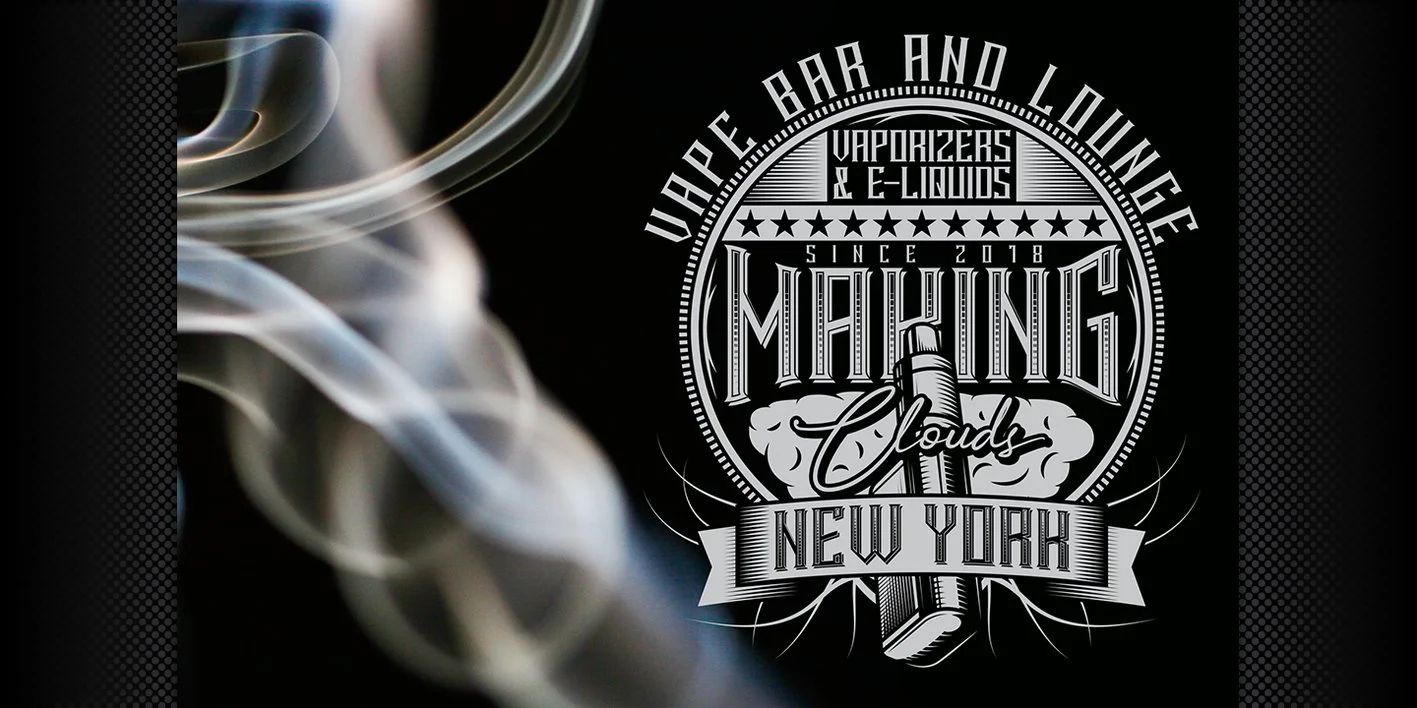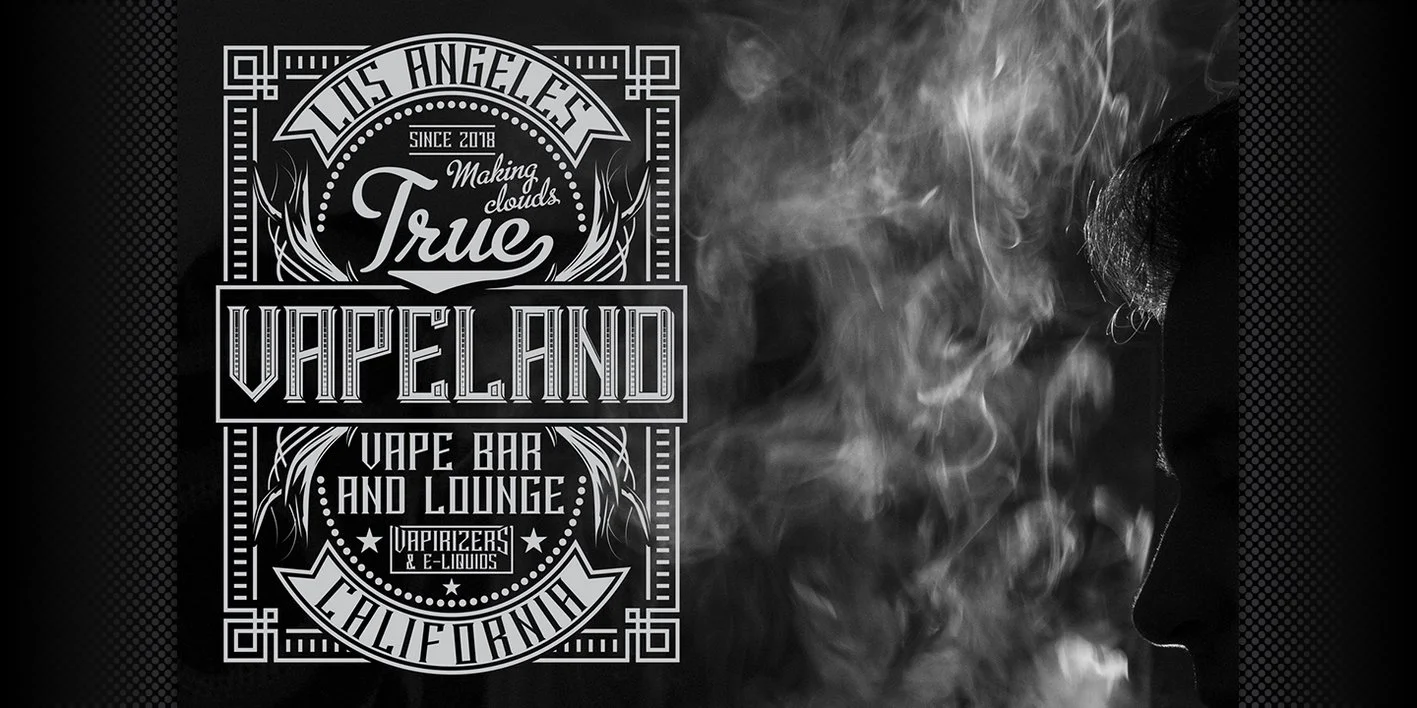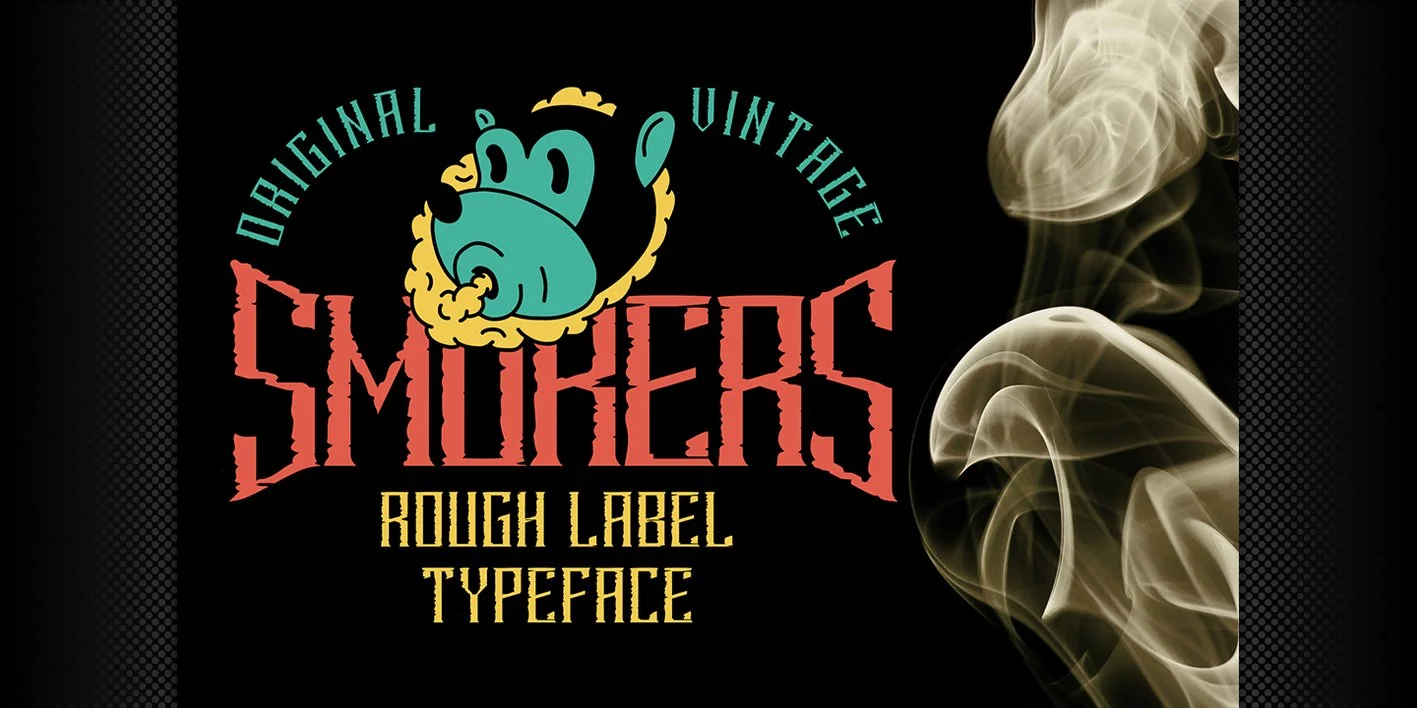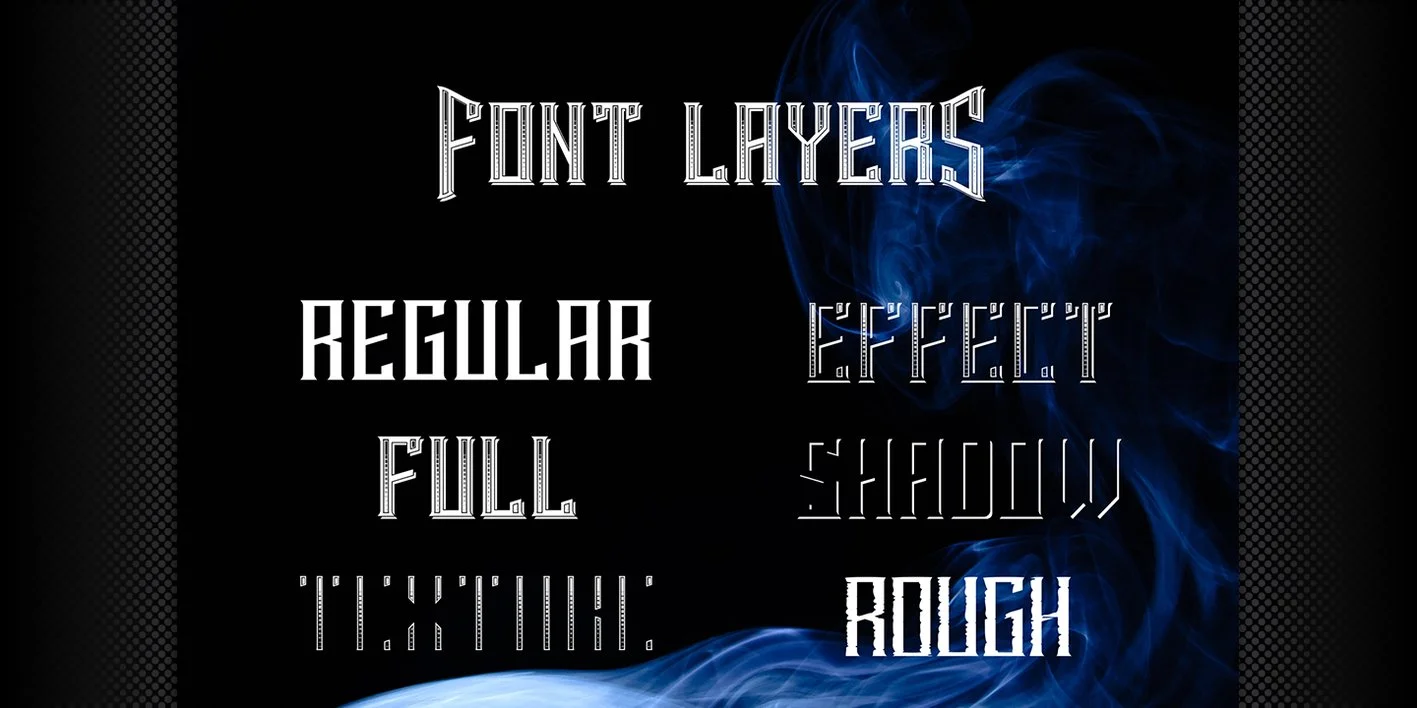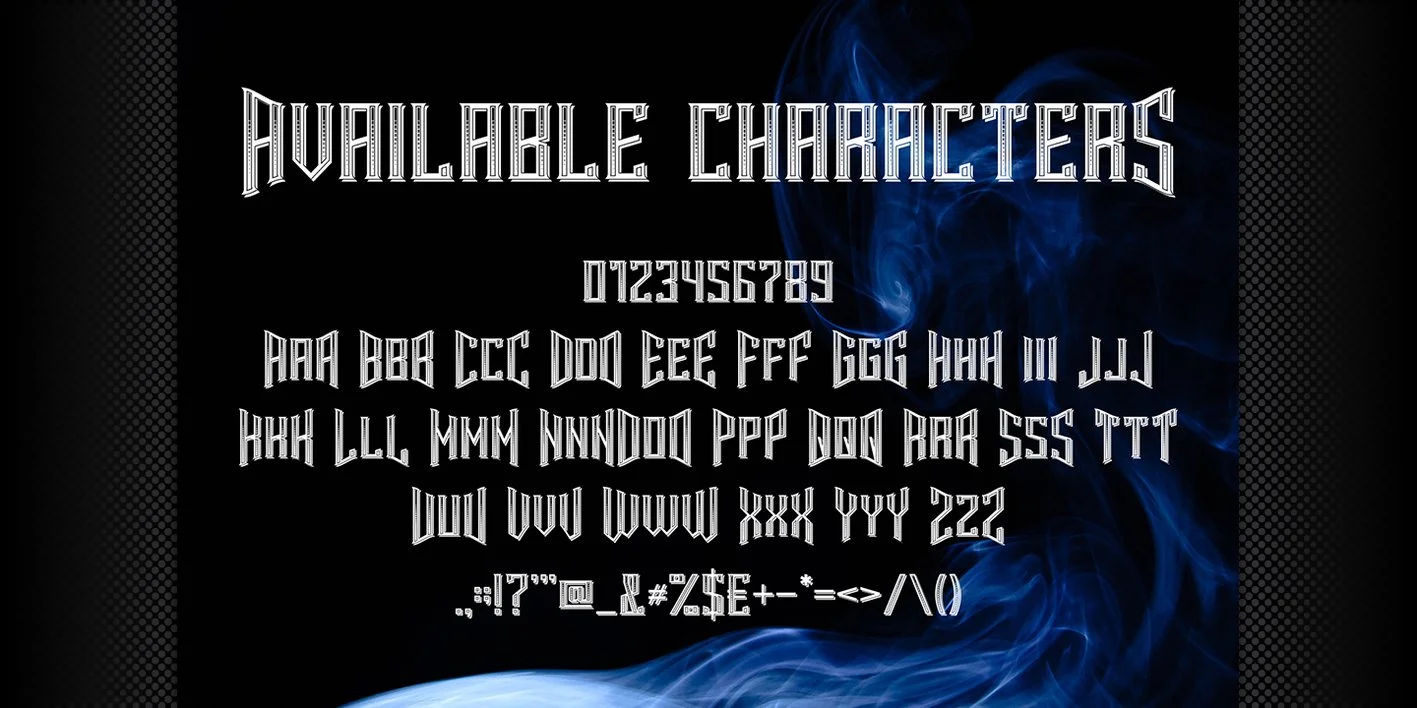
Smokers Font
There is a particular satisfaction in finding a typeface that delivers optical balance across all weights without compromise. Smokers consistently provides it. The typeface brings a versatile sensibility to a broad range of creative disciplines, with strong typographic hierarchy support that holds up whether the work is print-first or screen-first.
In practice, Smokers proves particularly effective for environmental graphics, brand identity systems, social media graphics, logo design, annual reports. Designers reaching for it find that the type decisions feel resolved rather than laboured — a useful quality when client timelines are tight.
The range of applications extends to editorial layouts, advertising campaigns, poster creation, packaging design. That breadth is deliberate: the proportions and spacing were stress-tested across a wide range of mock briefs before the typeface was finalised.
Freelance designers across print and digital disciplines find Smokers a reliable choice for projects that demand both personality and restraint. The design avoids the self-conscious quirkiness that dates quickly, settling instead for considered distinctiveness that holds up over time.